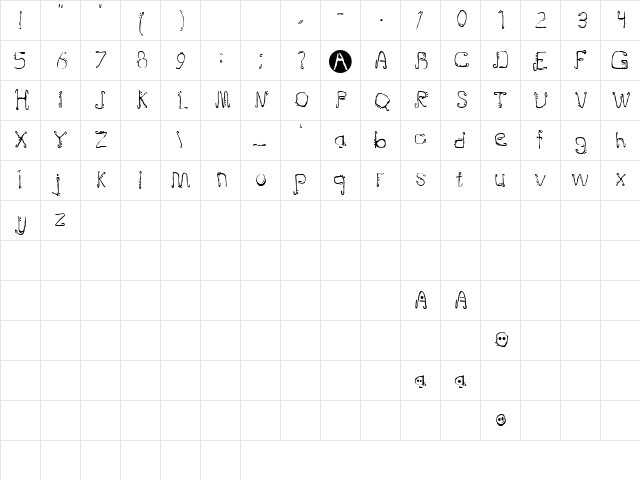
Doublejoint Regular
Design Context for Doublejoint Typeface
Doublejoint is a composed and adaptable typeface that performs quietly and consistently across a wide range of design contexts.